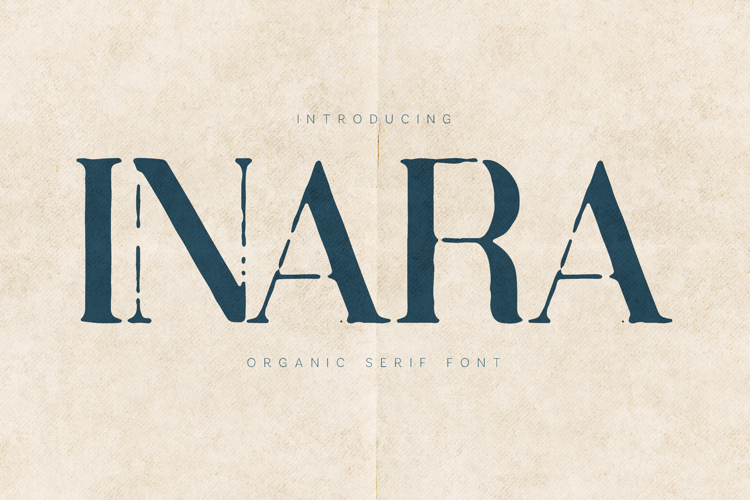
Inara Organic Textured Serif Font
Inara is a distinctive organic serif typeface that blends classic serif structure with natural, imperfect textures.
Each letter carries subtle distressed details and handcrafted cuts, giving the typeface a warm, tactile personality. This organic texture adds depth and character while maintaining the elegance and readability expected from a serif font.
Inara is designed for projects that need authenticity and visual richness. Its slightly imperfect strokes create a natural rhythm that works beautifully in branding, packaging, editorial layouts, and creative design projects.
The result is a serif font that feels both timeless and expressive — perfect for designers looking for something refined yet organic.
• Organic textured letterforms
• Distressed serif details